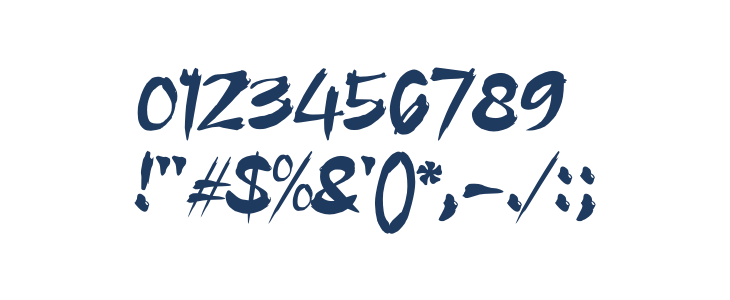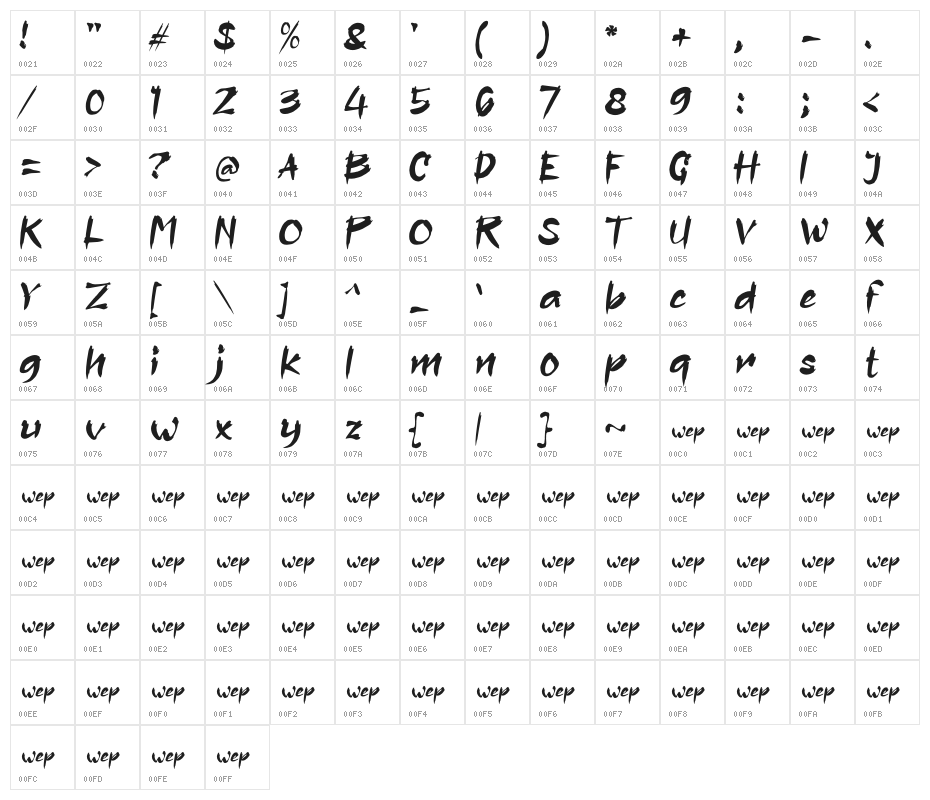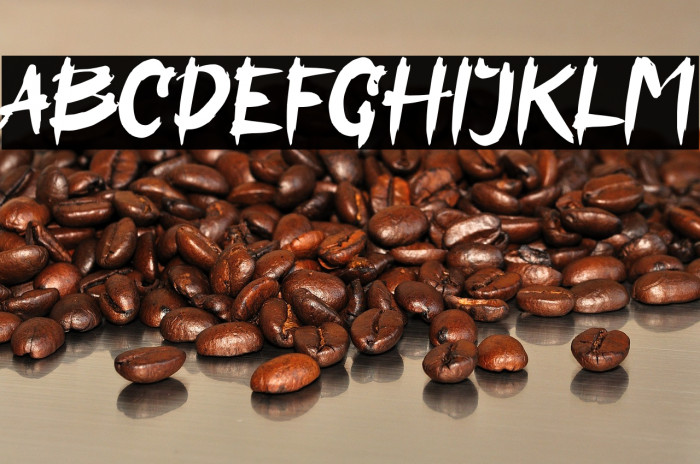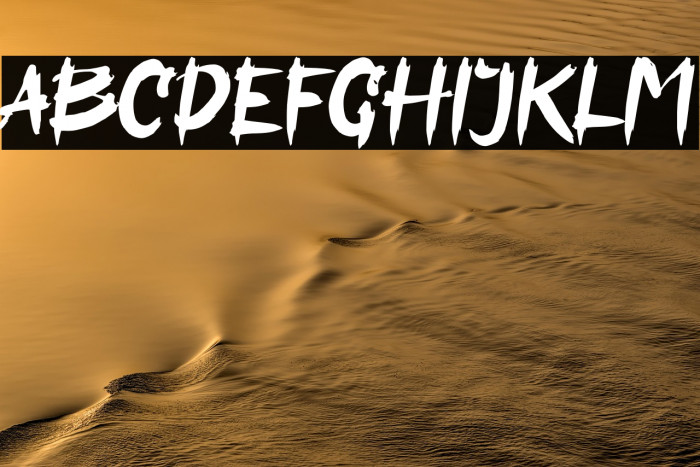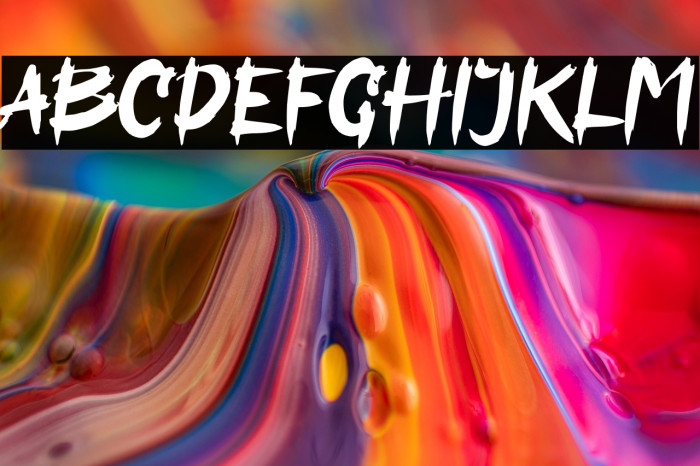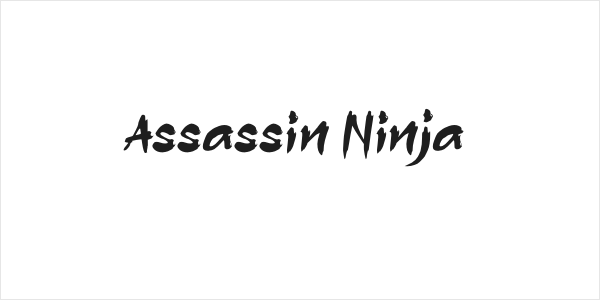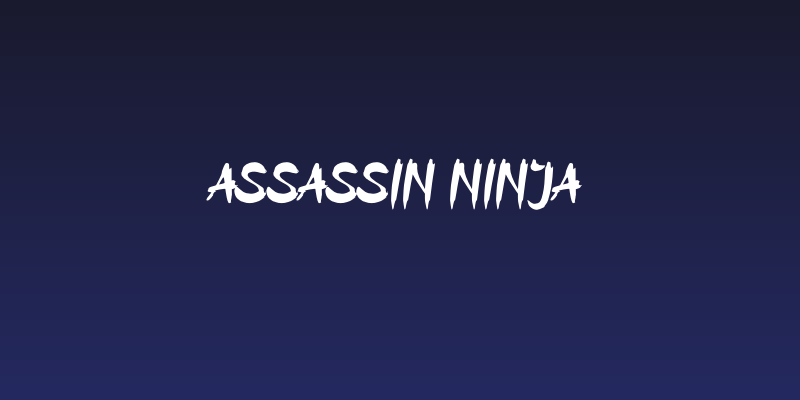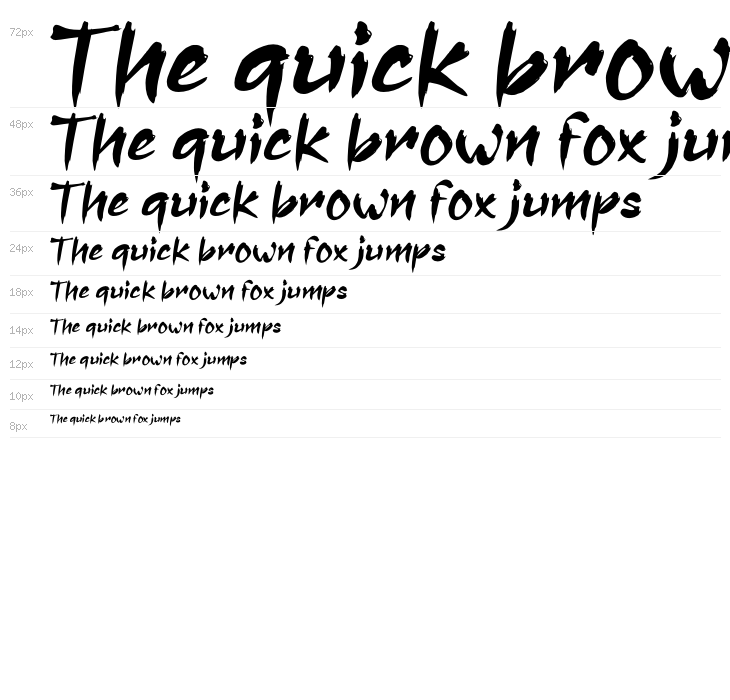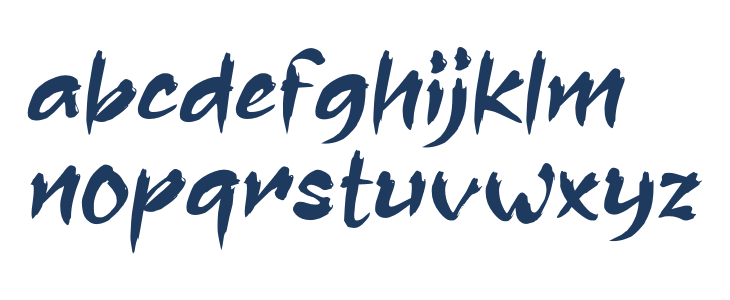
Assassin Ninja Font
Assassin Ninja Description
This font features a bold and dynamic brush script style, characterized by its energetic and fluid strokes. The letters have a hand-painted appearance, with varying thickness that adds a sense of movement and spontaneity. The uppercase letters are particularly striking, with sharp angles and dramatic curves, while the lowercase letters maintain a consistent flow. The numerals and special characters are equally expressive, contributing to the overall artistic feel of the typeface. This font is ideal for projects that require a strong visual impact and a touch of creativity.